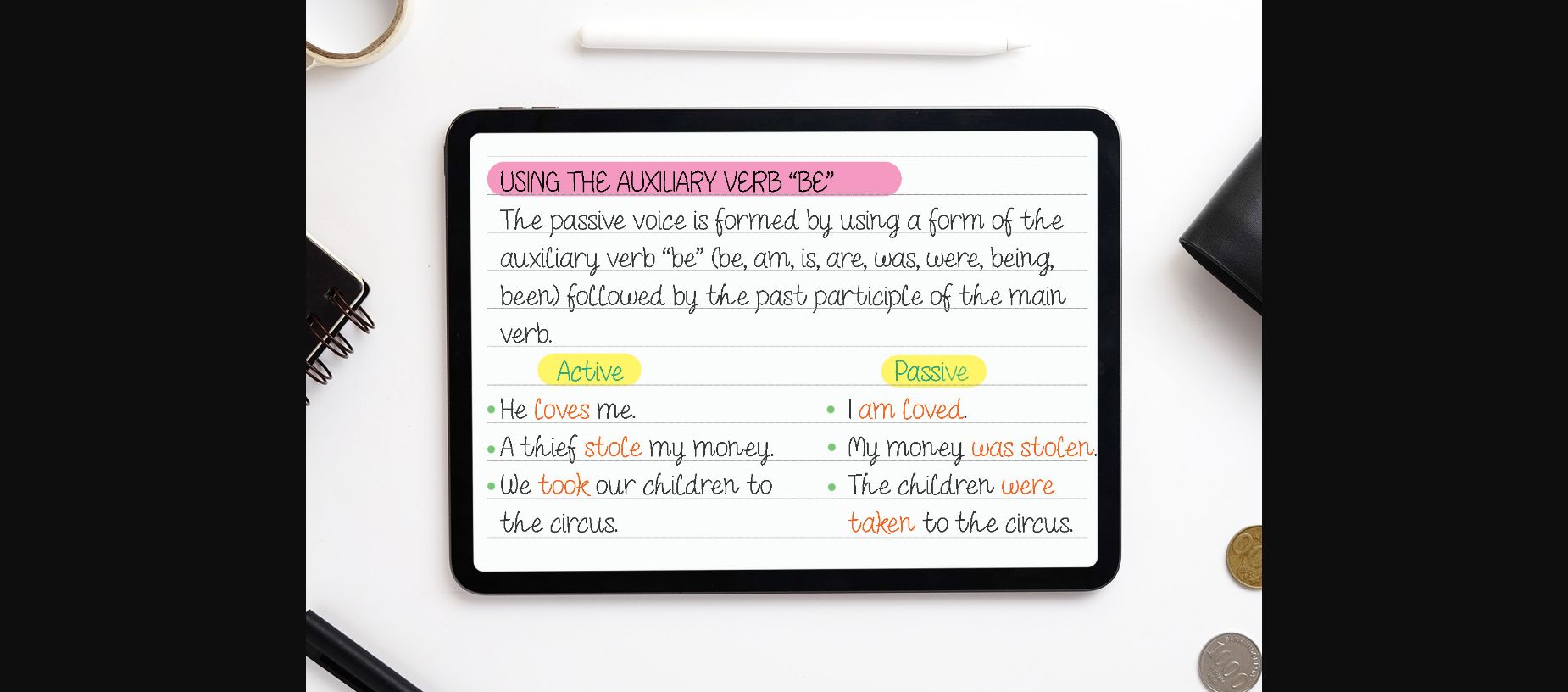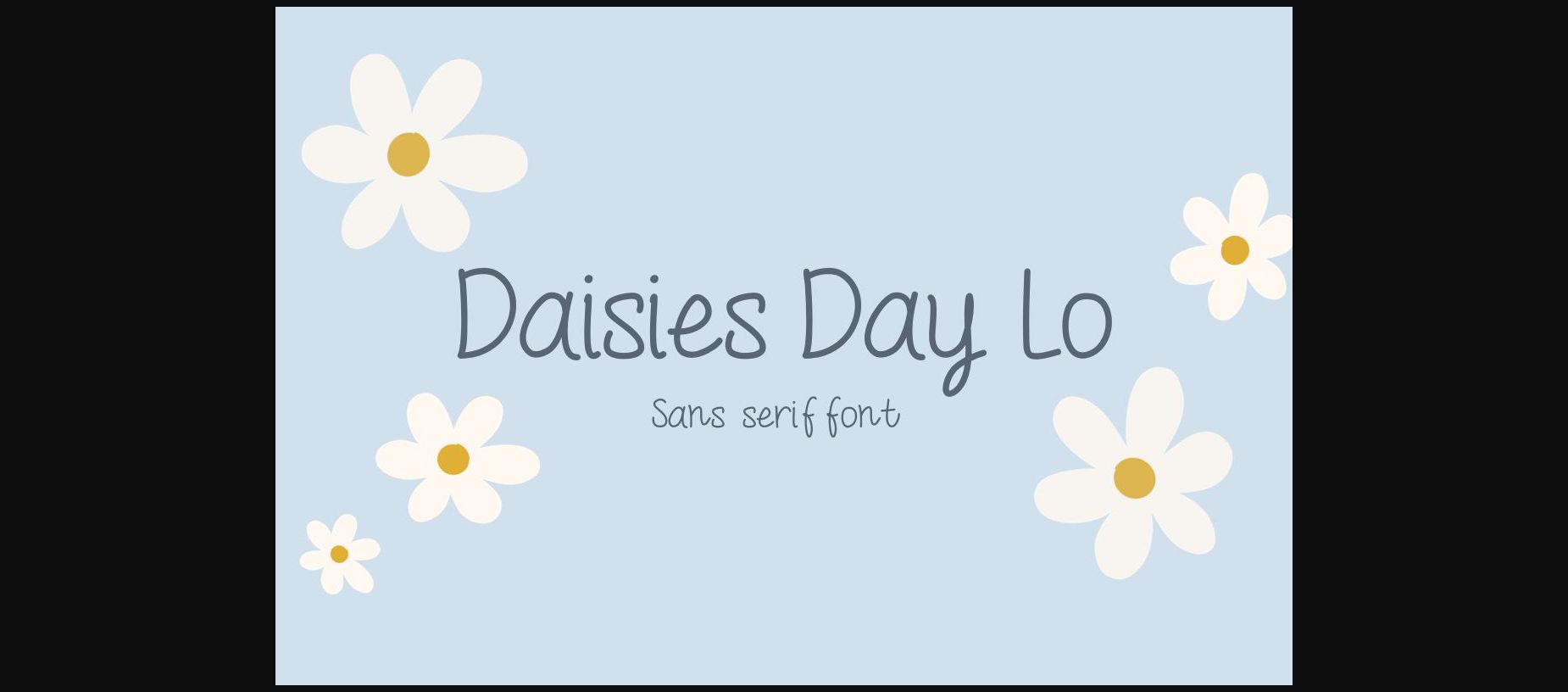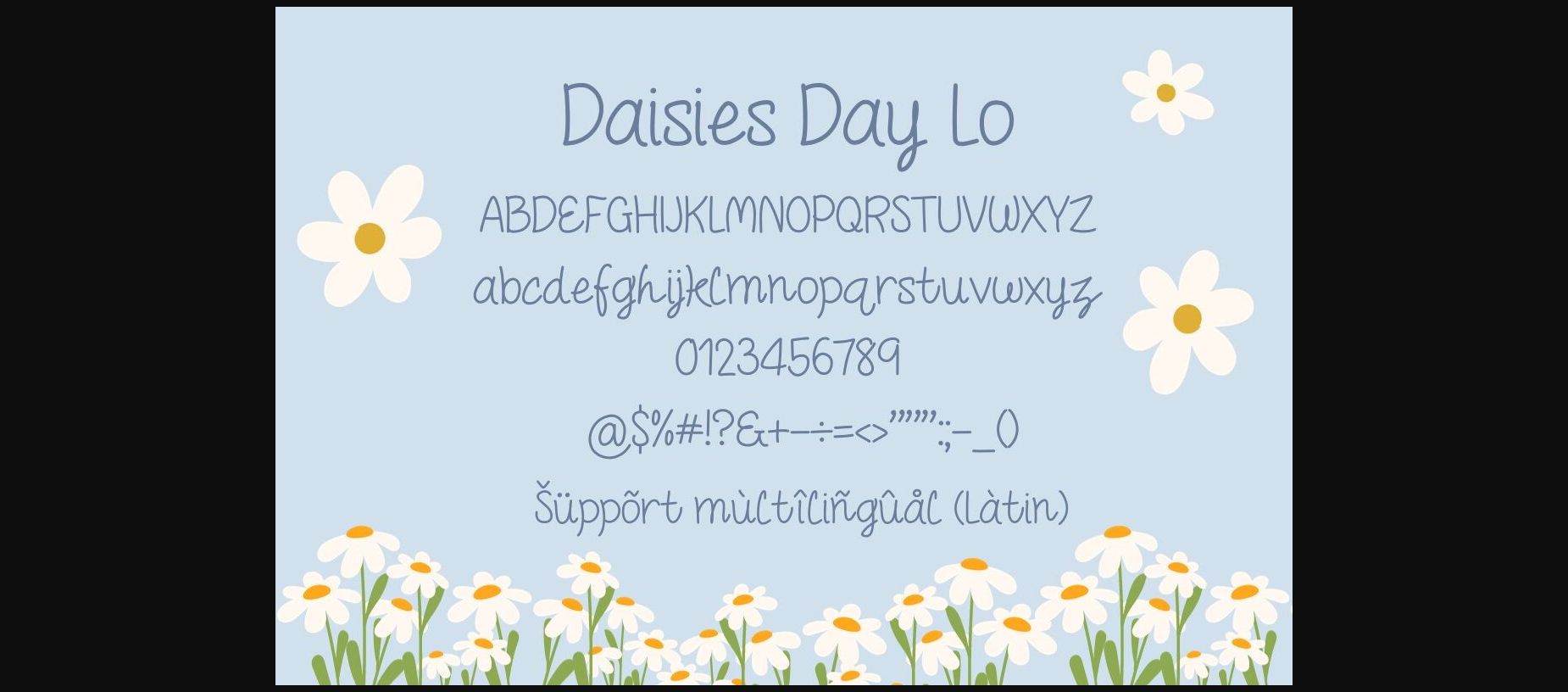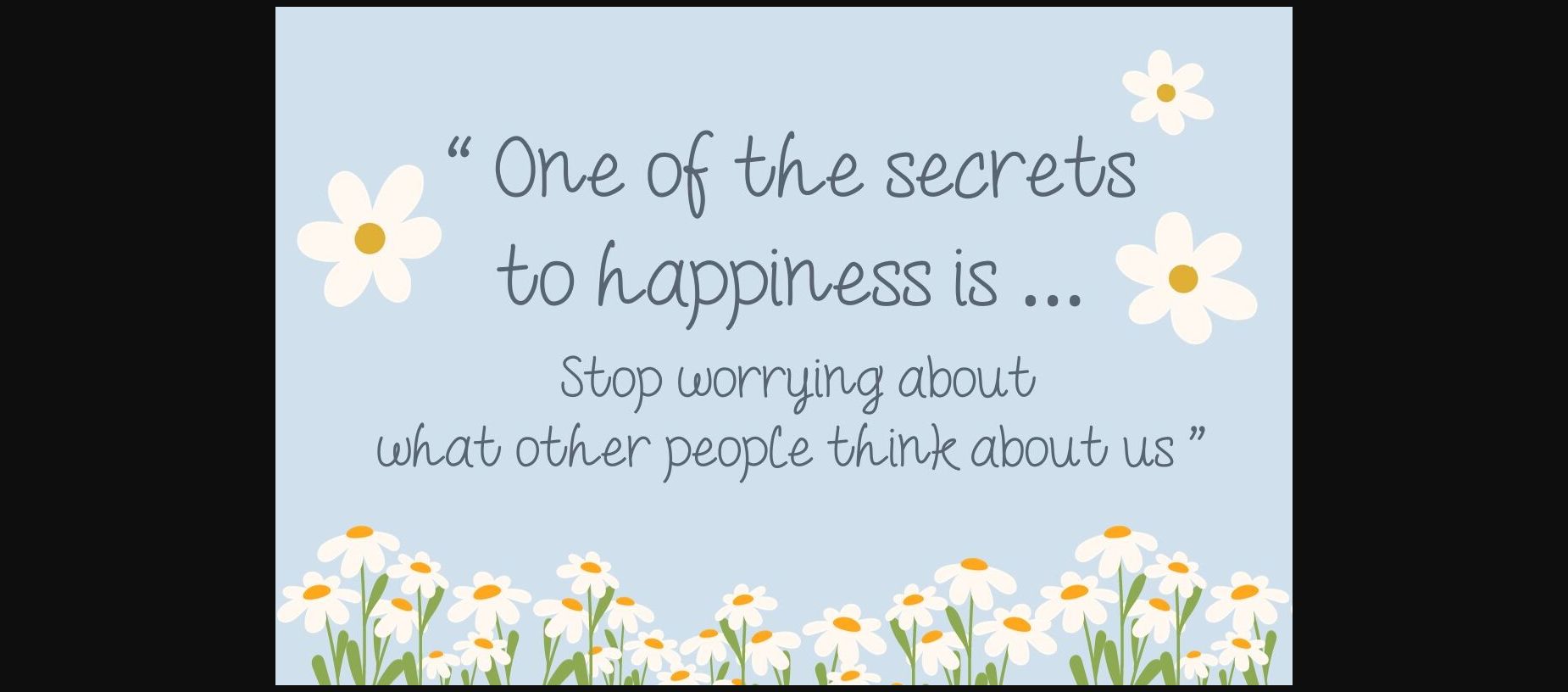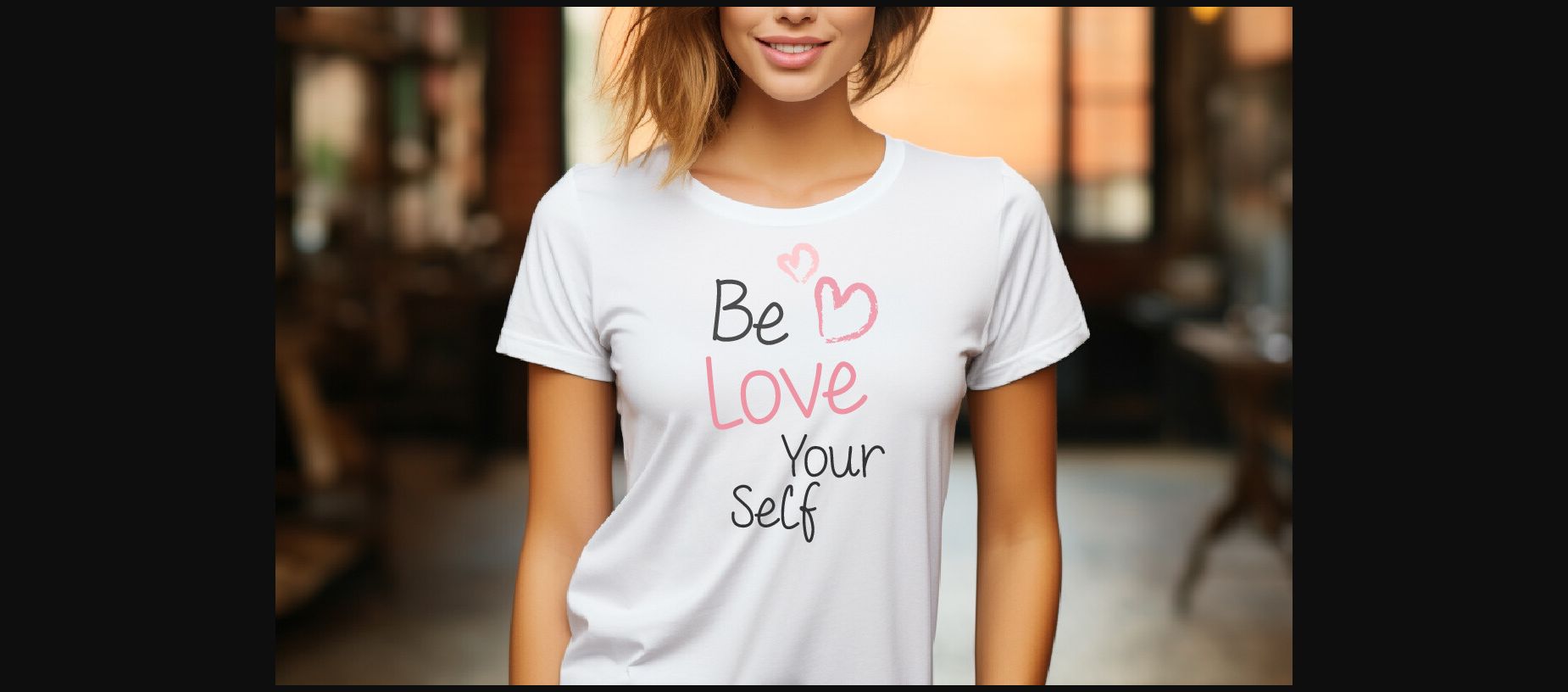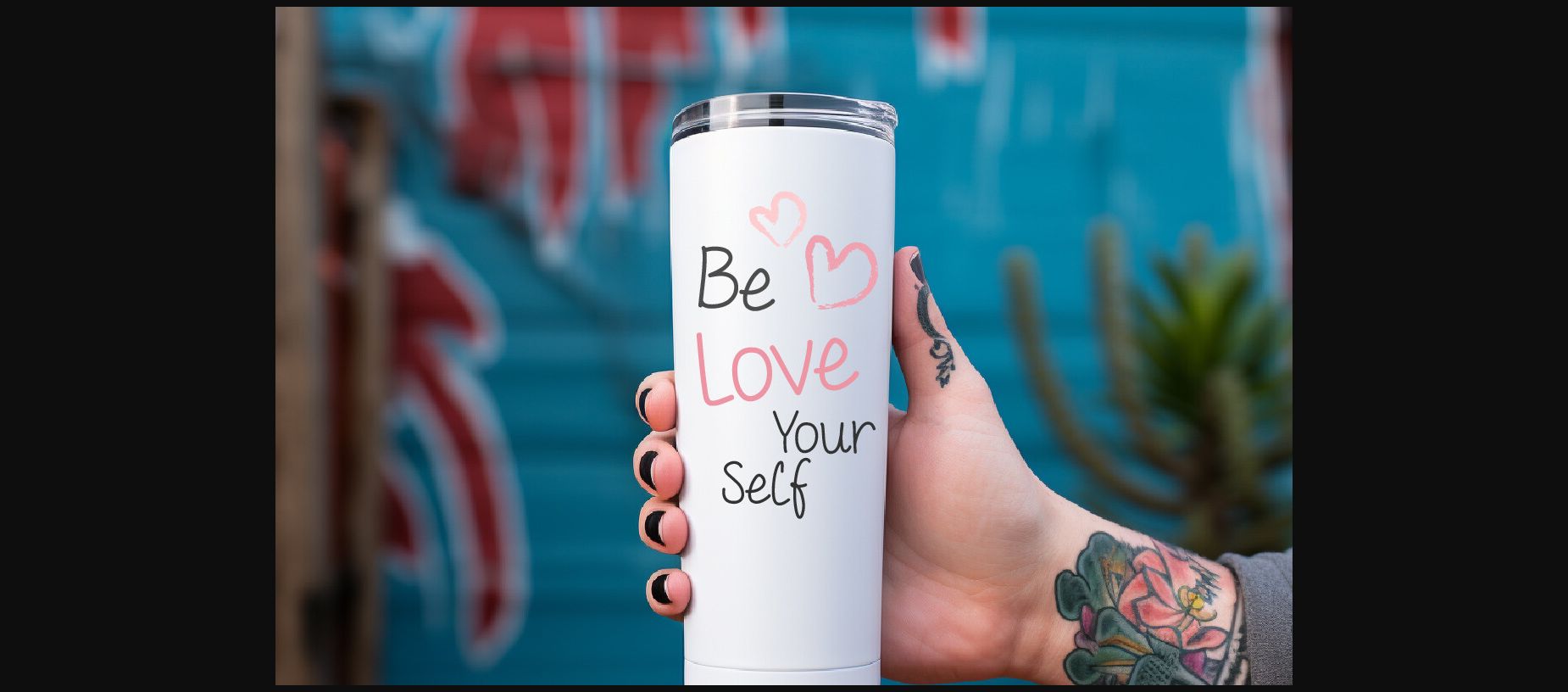
Daisies Day Lo Font
About Daisies Day Lo Font
Daisies Day Lo is a cute, Good mood and fun handwritten font. Its informal style and casual vibe will make this font a go-to. It would be awesome to your fun projects or diary planner, on wedding invitations, thank you cards, quotes, greeting cards, logos, posters, blogs, bag, T Shirt, clothing and other designs. choice for each of the creations that require a relaxed touch.